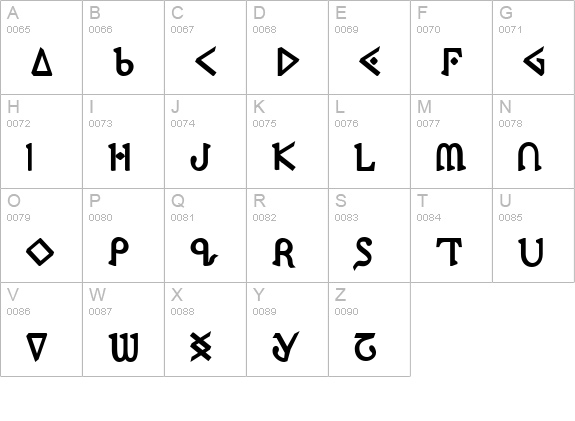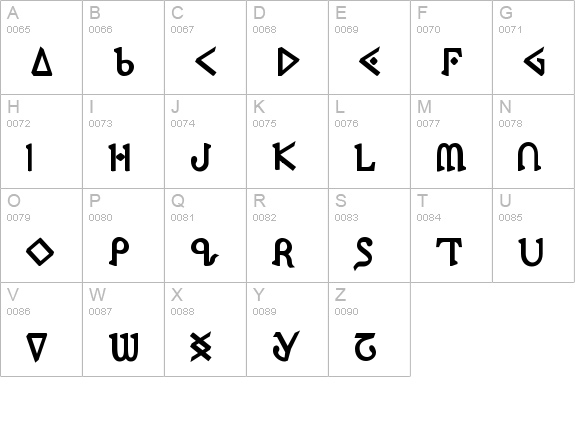
Presley Press ExtraBold Font Details
Presley Press ExtraBold is an extra-heavy, attention-grabbing variant in the Presley typeface family \xE2\x80\x94 well suited to high-impact headlines, posters, and bold branding.
Presley Press ExtraBold font is a striking and bold typeface designed to make a statement. Its strong, thick lines convey a sense of power and authority, making it perfect for headlines, titles, and other attention-grabbing text. The extra bold weight of this font ensures that your message will stand out loud and clear. Not only does Presley Press ExtraBold font make a bold statement, but it also offers a touch of sophistication and modernity to any design project. Its sleek and stylish appearance adds a contemporary flair, making it versatile for a wide range of applications. Best of all, Presley Press ExtraBold font is available for free download at FontsMarket.com. This means you can easily access this powerful and impactful font to enhance your designs without any cost. Whether you're working on a poster, logo, website, or any other creative project, Presley Press ExtraBold font is sure to make a lasting impression. Download it today and elevate your design game with this impressive and eye-catching typeface.